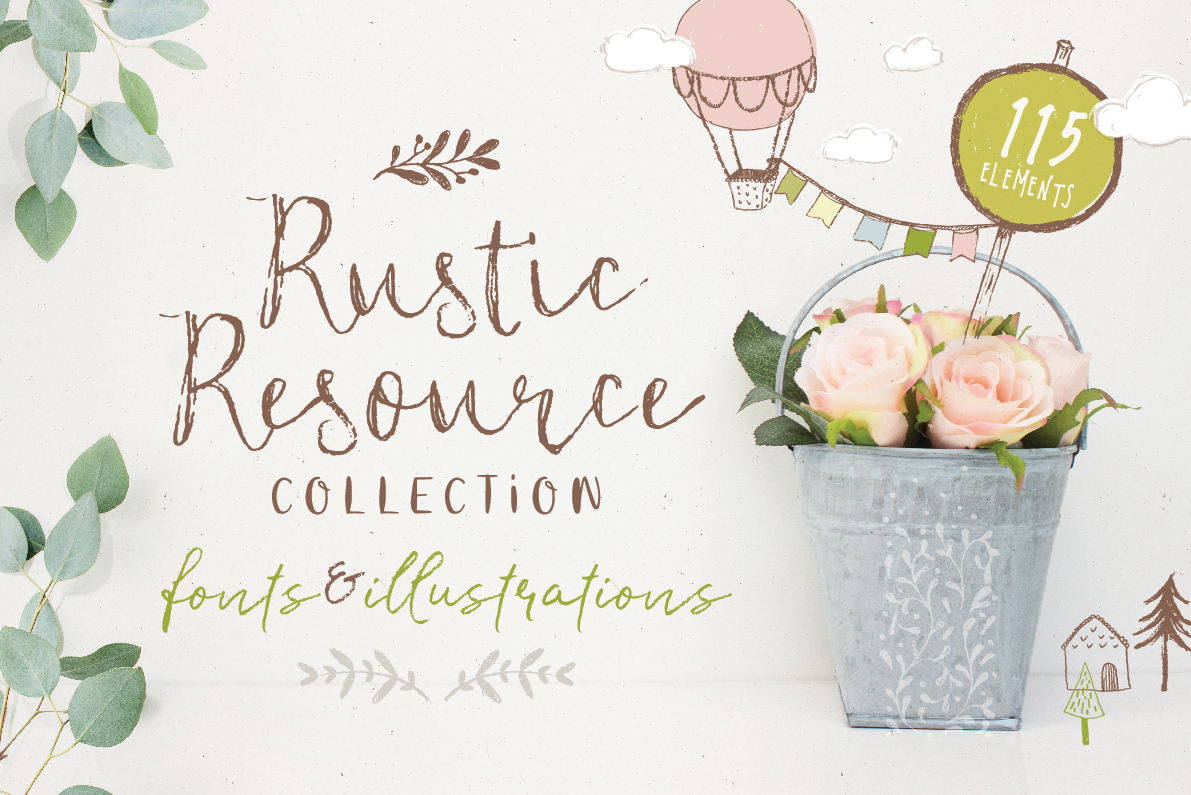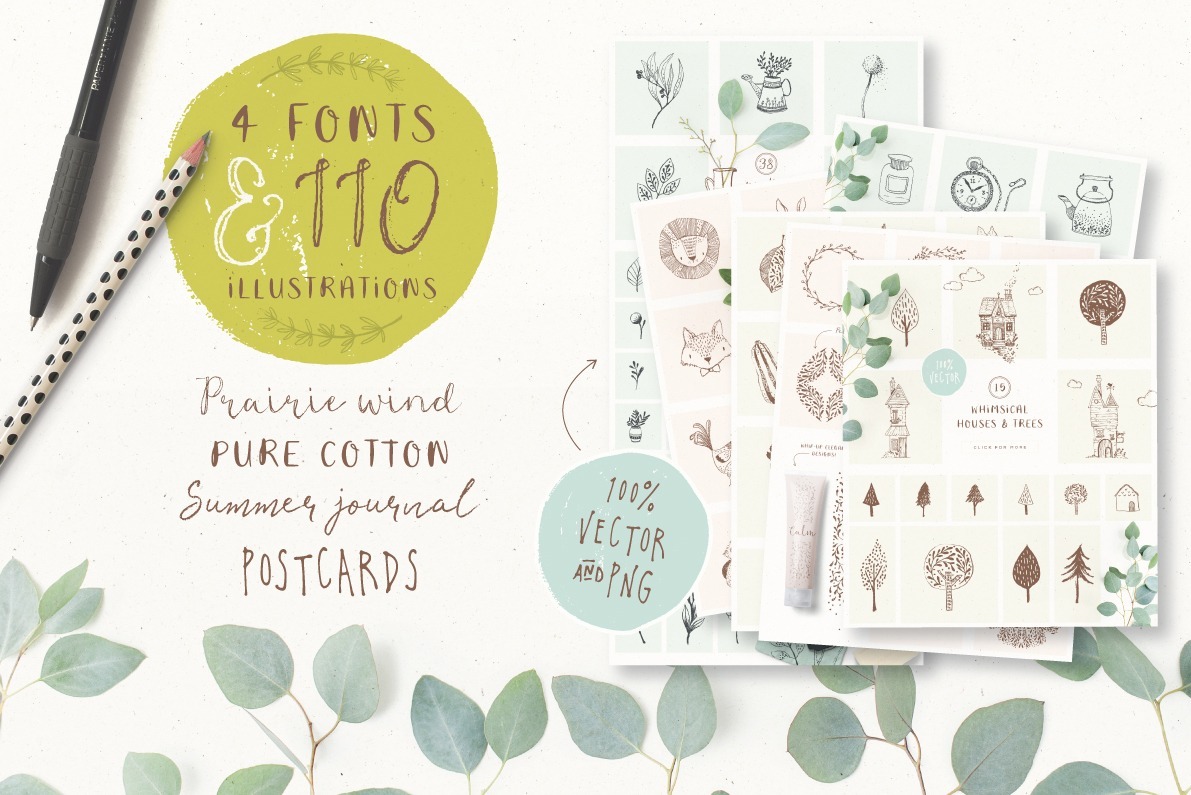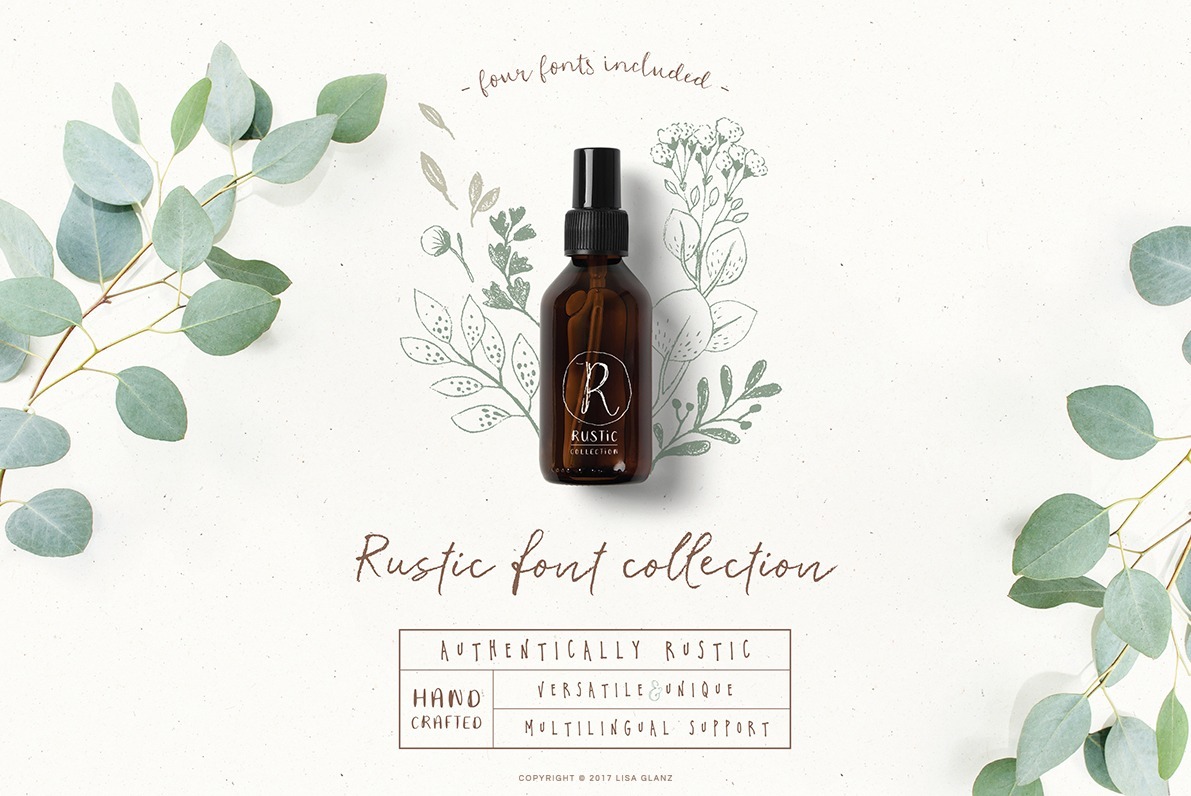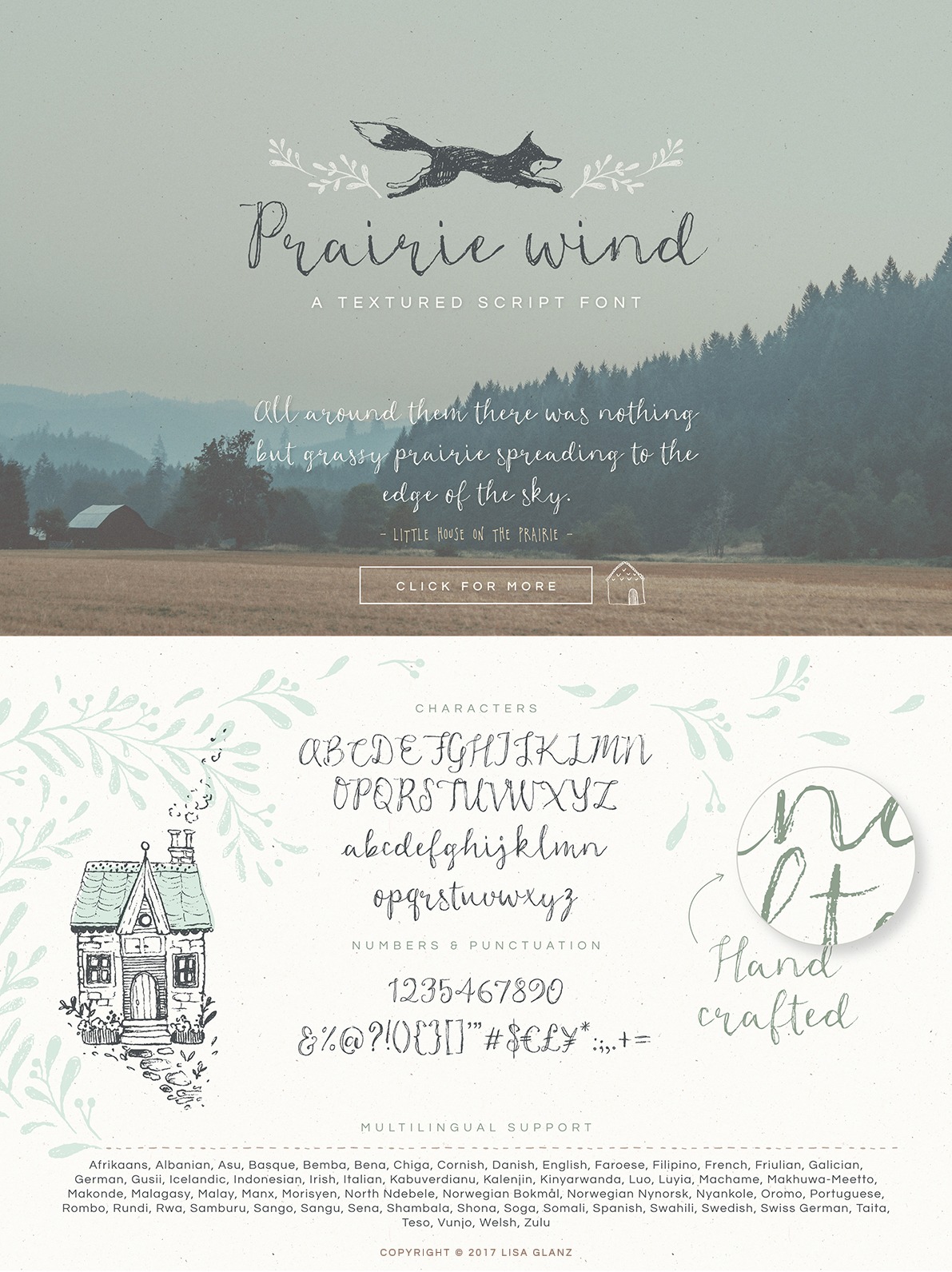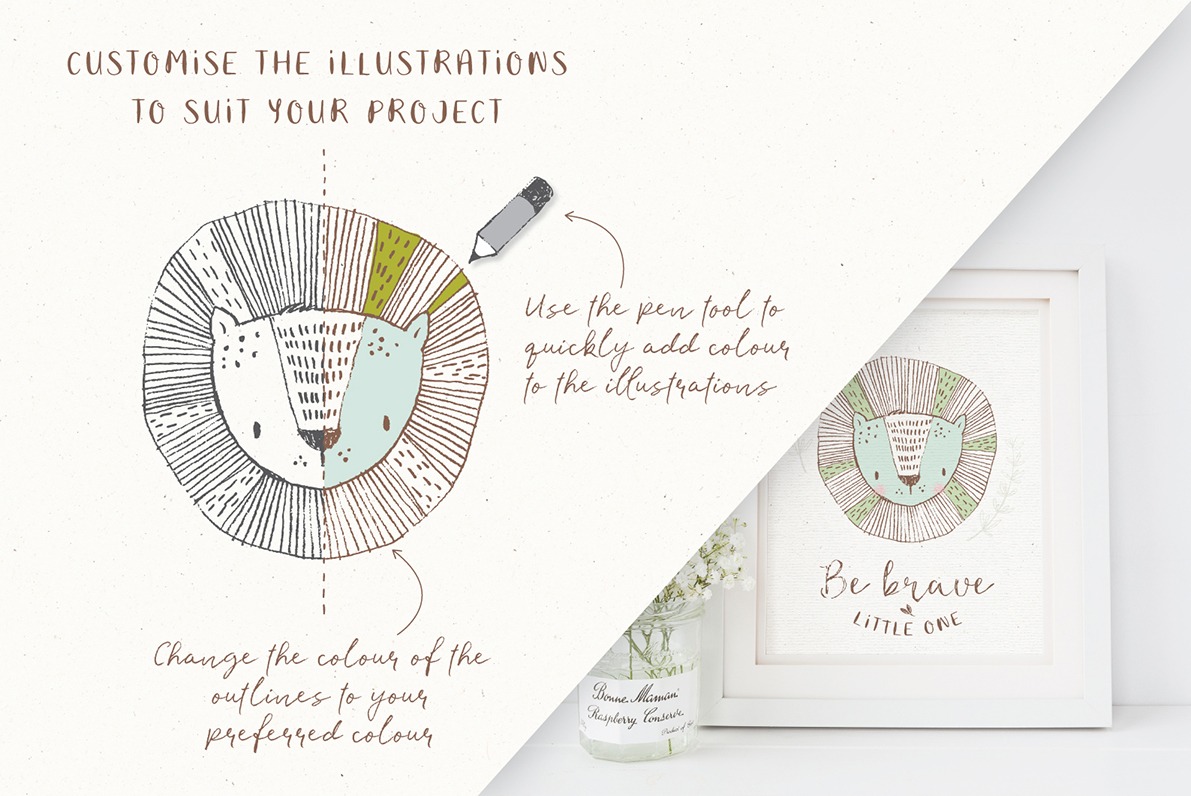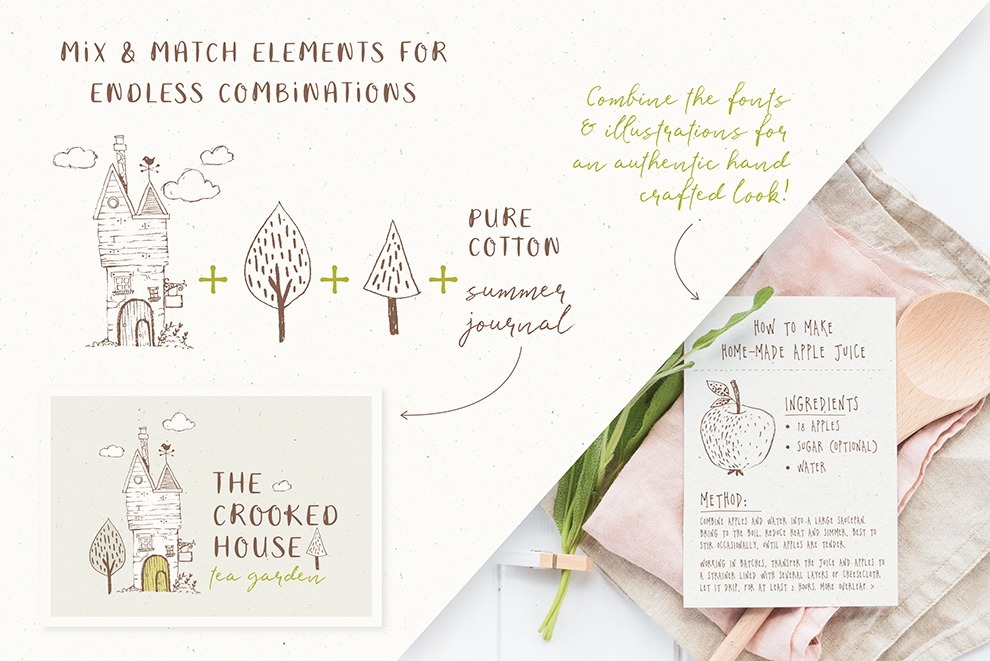
Rustic goodies included in this collection:
- Prairie wind script
- Summer journal script
- Pure cotton Sans Serif
- Postcards Sans Serif Regular & Semibold
Really great und cute fonts but unfortunately without “Umlaute” (ä ö ü…)
but unfortunately fonts without Polish letters.